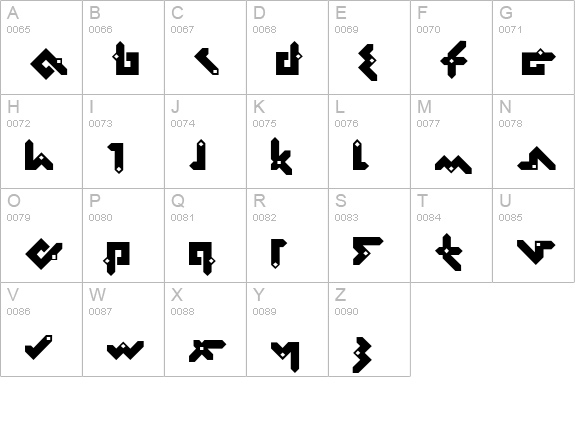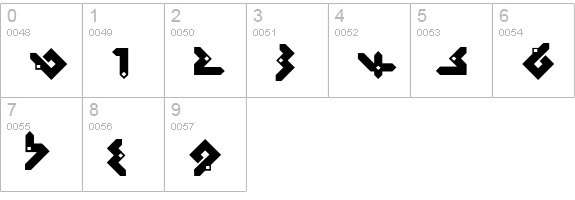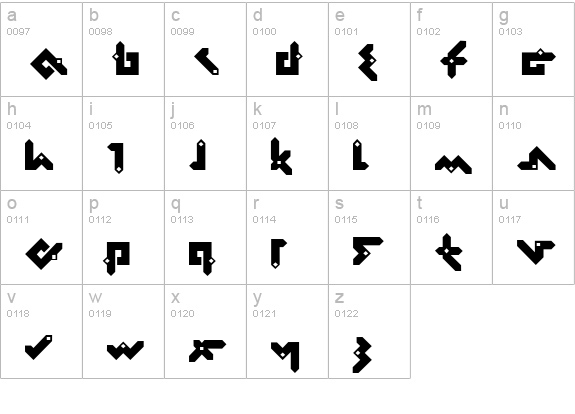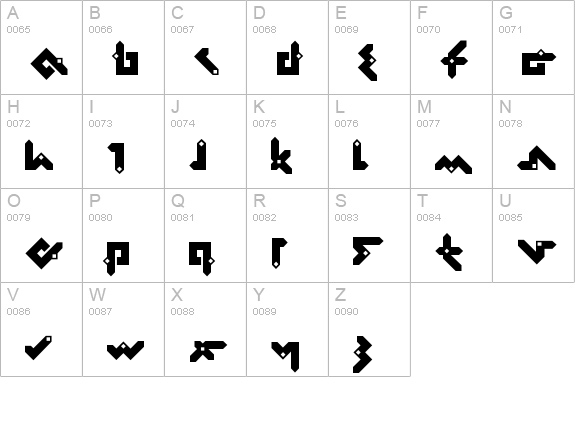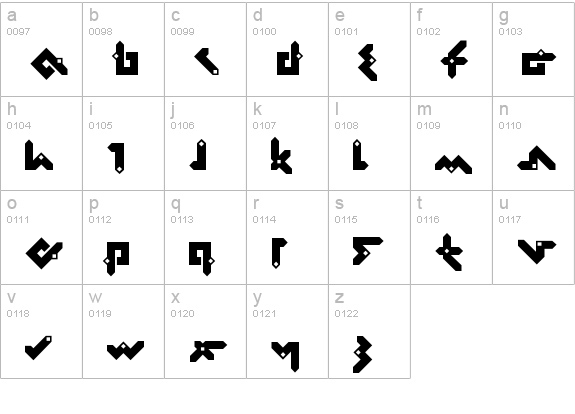
Pentomino Font Details
Pentomino font is a beautifully crafted typeface that combines elegance and versatility. With its clean lines and geometric shapes, this font is perfect for both professional and creative projects. The unique design of each character adds a touch of sophistication, making it a standout choice for logos, branding, and editorial designs. What sets Pentomino font apart is that it is not only visually stunning but also free to use. Yes, you heard it right - this amazing font is available for free! You can easily download it at FontsMarket.com, a trusted source for high-quality fonts. Whether you are a designer looking to add a modern twist to your projects or a student working on a presentation, Pentomino font is the perfect choice. Its versatility allows it to be used in a variety of contexts, from websites to posters and everything in between. The attention to detail in Pentomino font is truly remarkable. Each character is meticulously crafted, ensuring a consistent and harmonious look throughout your design. The clean lines and balanced proportions make it easy to read, whether in large headlines or small body text. But what truly makes Pentomino font special is its ability to evoke a sense of creativity and innovation. The unique letterforms spark imagination and inspire originality, making it an ideal choice for projects that require a touch of artistic flair. Don't miss out on this incredible opportunity to enhance your designs with Pentomino font. Download it for free at FontsMarket.com and experience the beauty and versatility of this exceptional typeface.